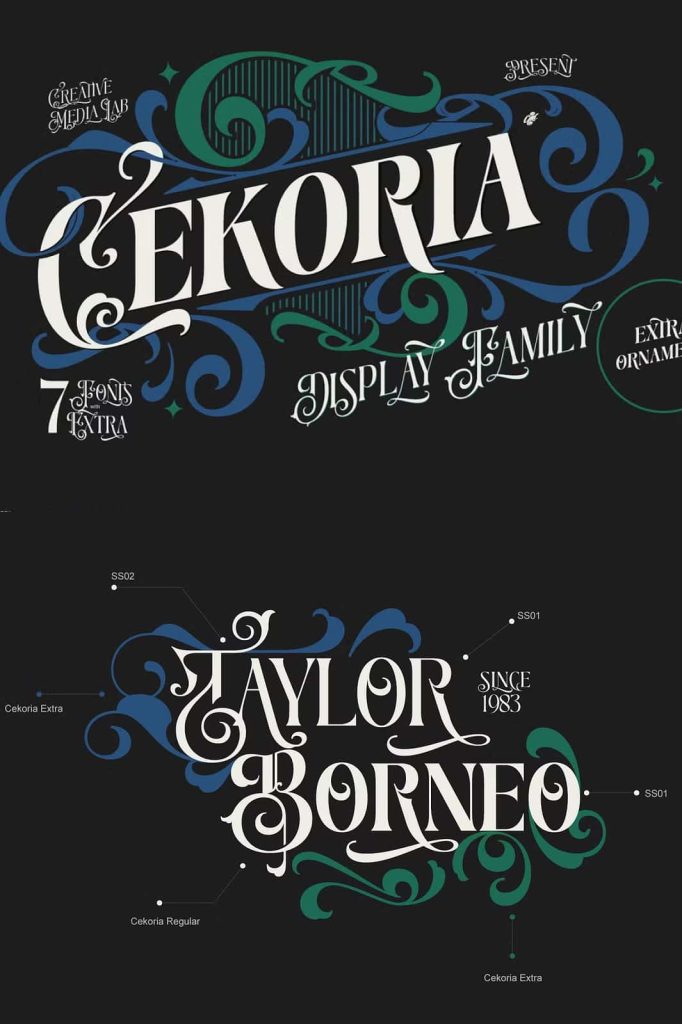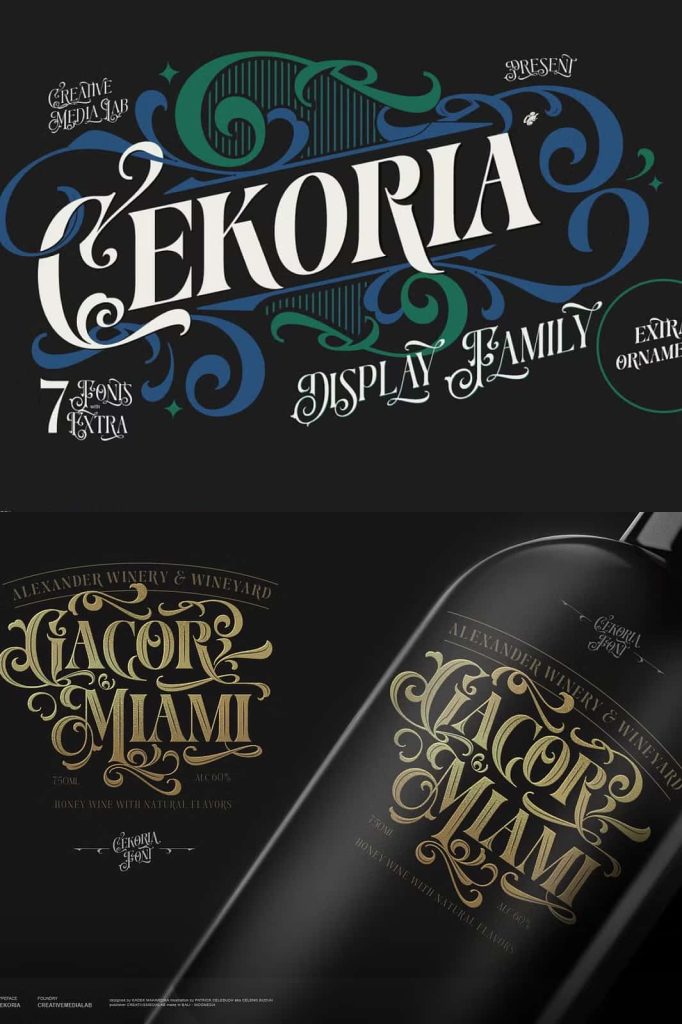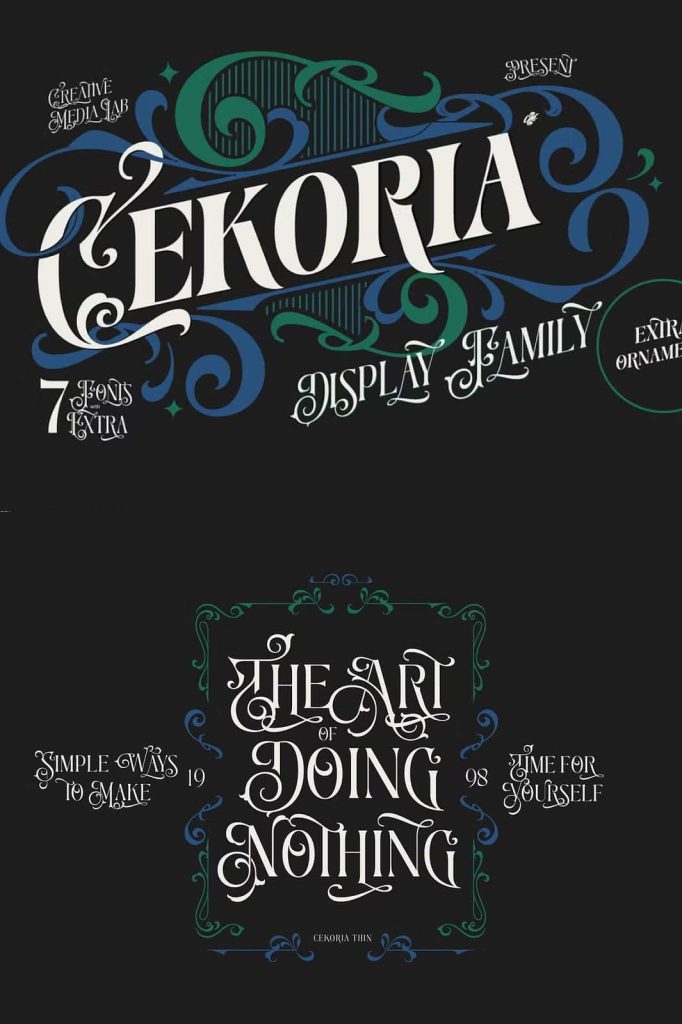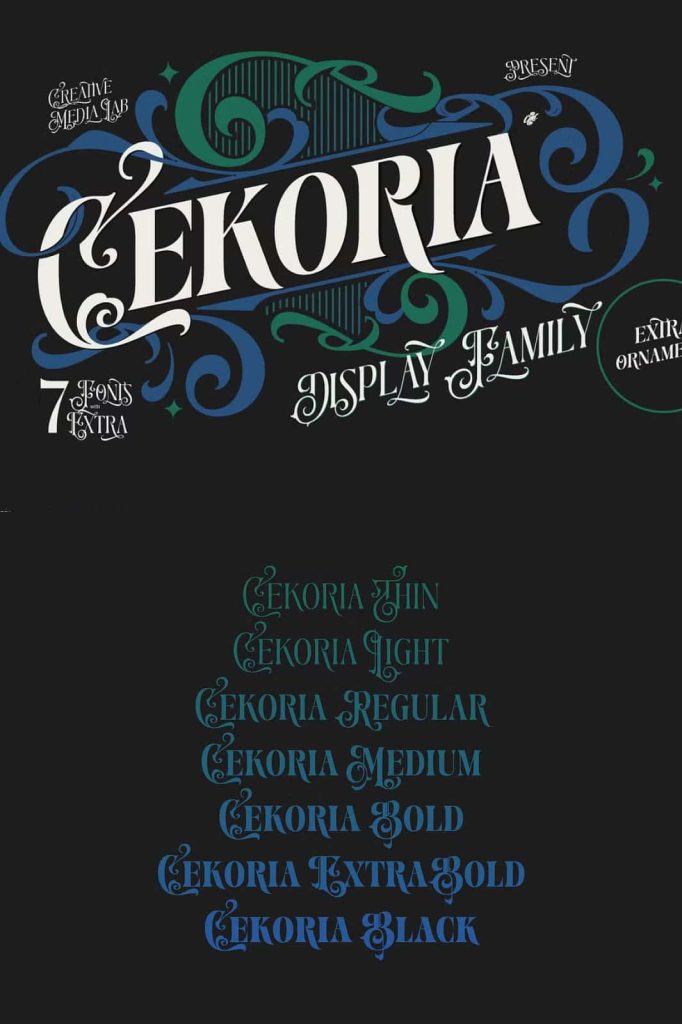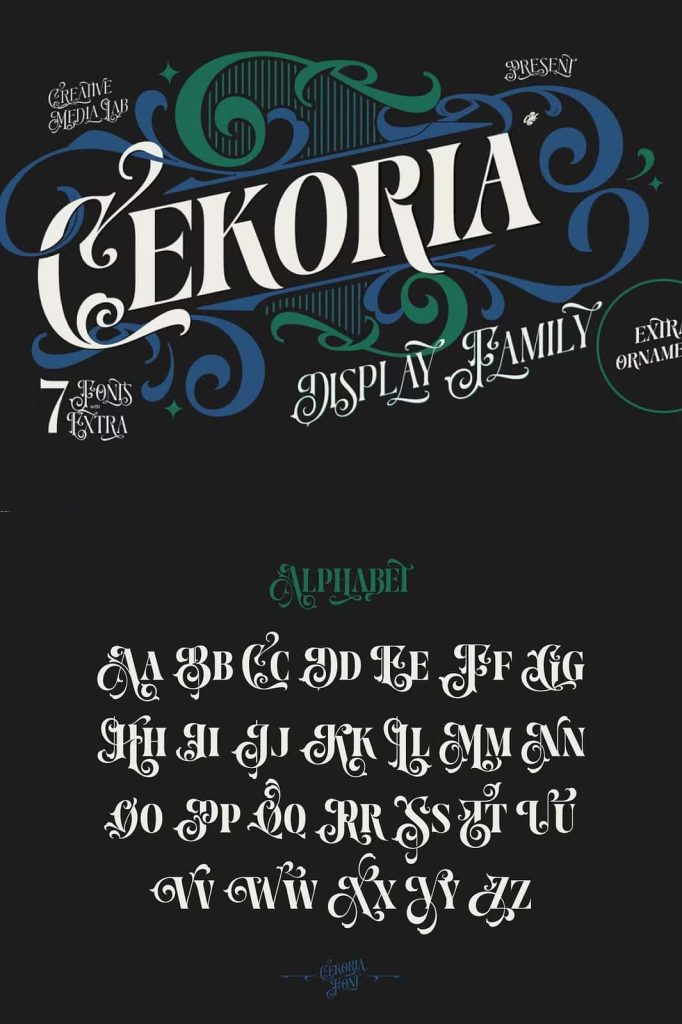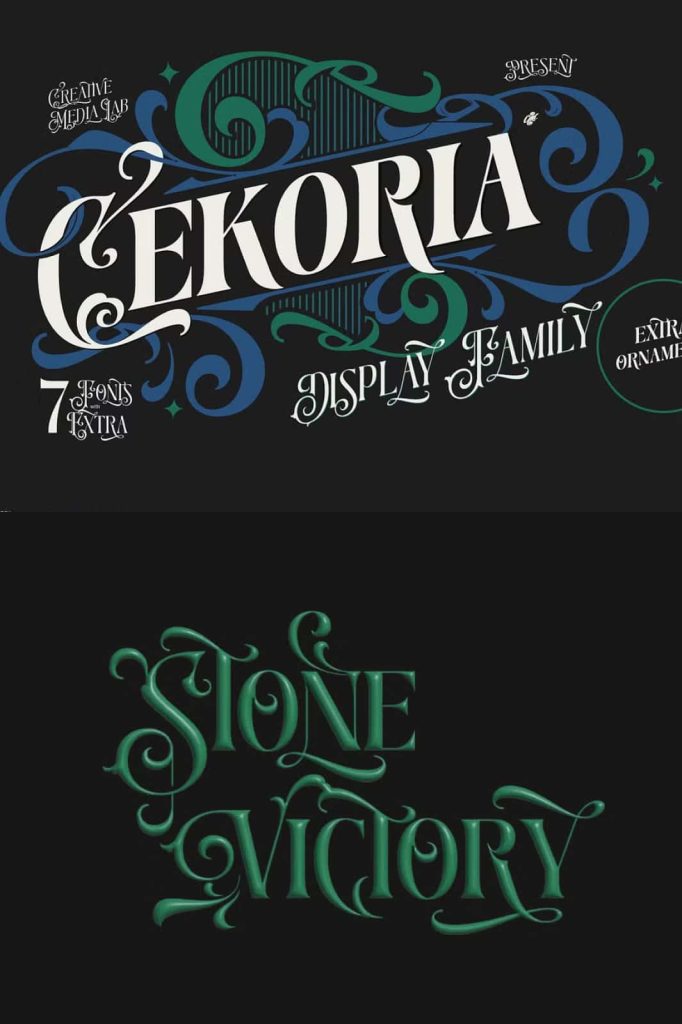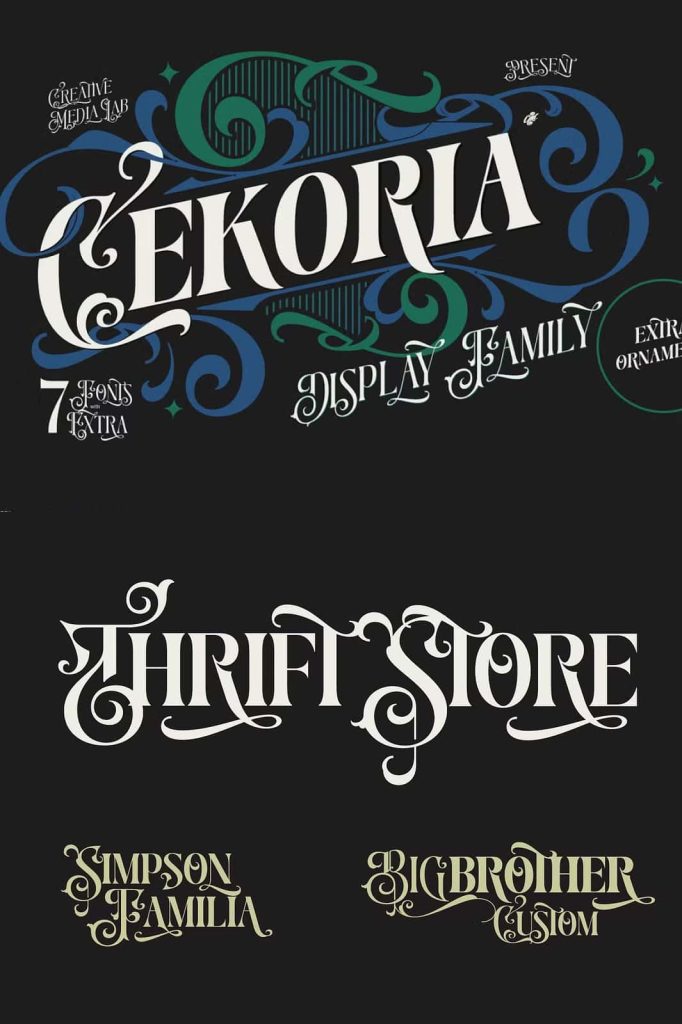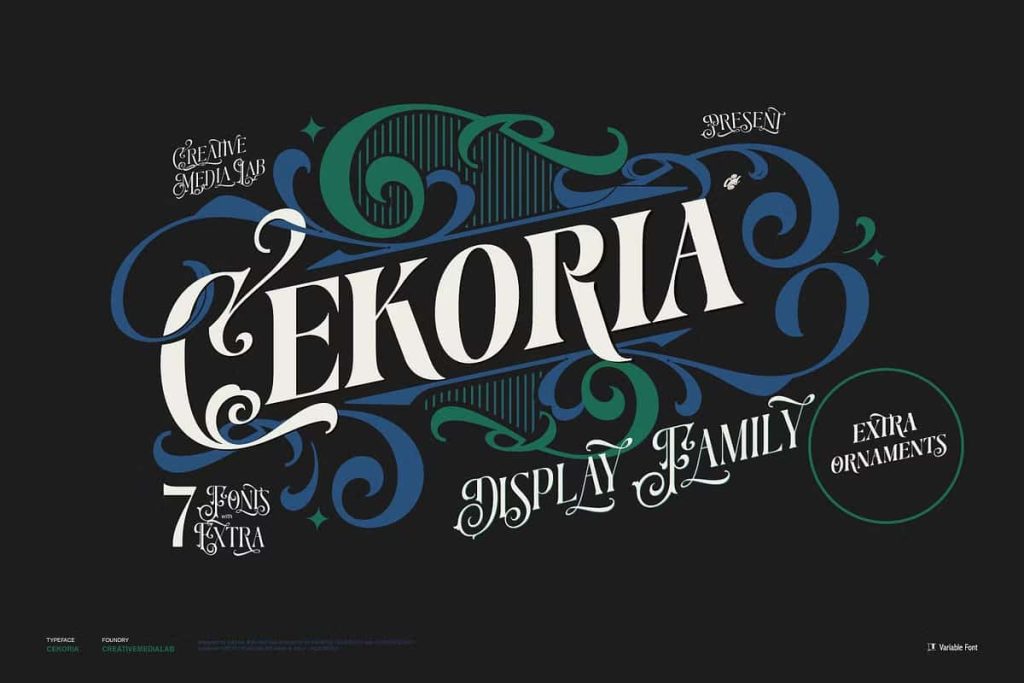
Cekoria – Decorative Display FamilyleastedDecember 31, 2024Fonts Introducing Cekoria, a decorative display font inspired by classic vintage signage art. Download